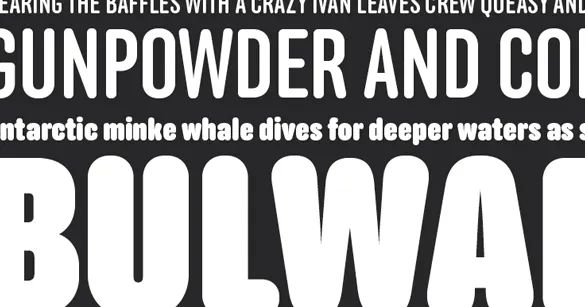
New Release: Anchor
Anchor is our new four-weight family of round display gothics designed for maneuvering in especially cramped quarters. With weights ranging from Medium to Black, Anchor promises plump over-indulgence in the heavy weights and relatively sober display capabilities in the lighter weights. Of note are Anchor’s inflated arrows that can be seen throughout the specimens on this site. Available exclusively at the Process Type Foundry.